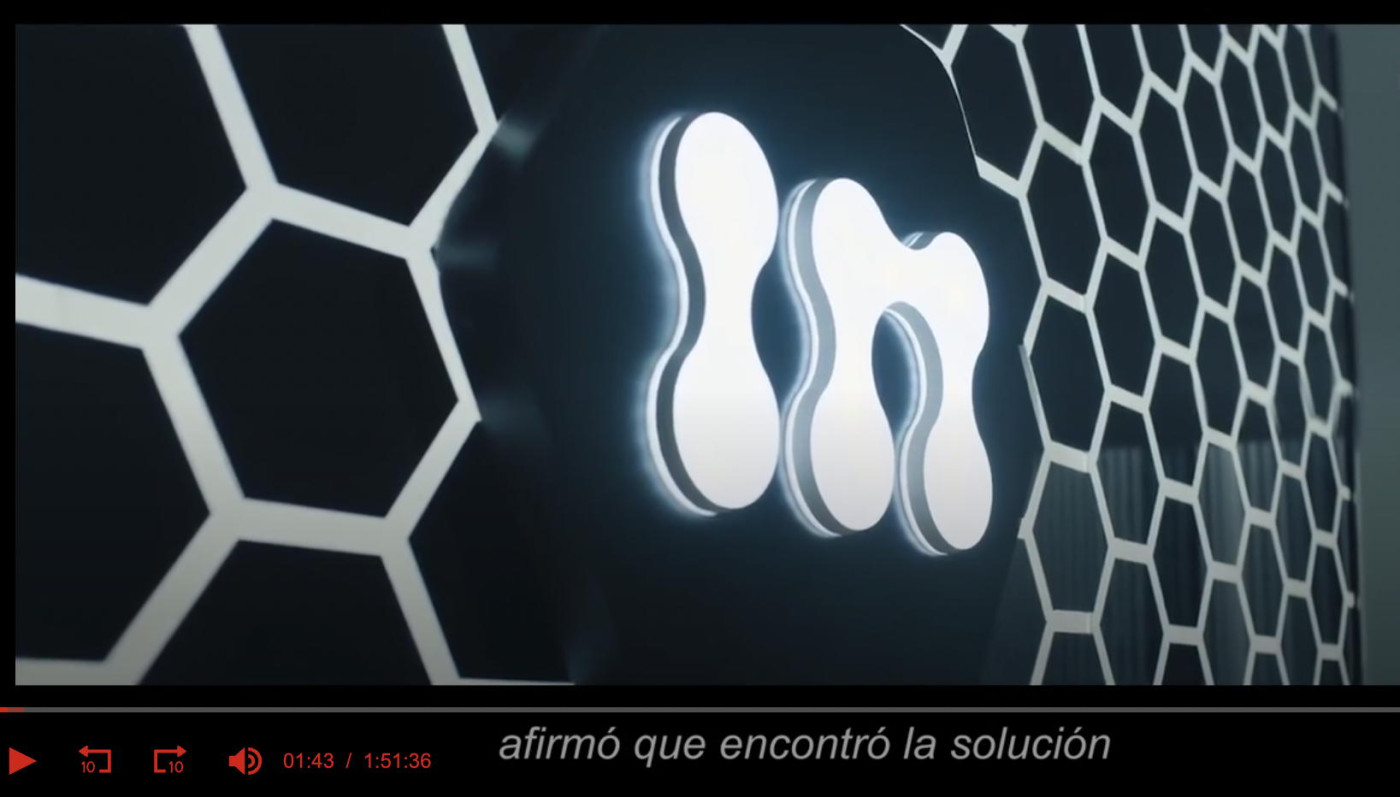
• Plastelina is a some kind of modelling clay. Kids love it (or love to smear it everywhere they can). Plastelina is the same thing as Plasticine, but we don't use it as a brand name in Poland. I hope I've counted the height properly... And I hope they didn't mean "height over the baseline" or "height of the whole fontstruction"... All characters are lowercase, except for "a" and "l" because it didn't look very well. My first entry out of 3. What a great combo - handmade looking face and handmade sample! Gallery: http://pokazywarka.pl/ks7qwt/
While early to say *ba baba baa* I believe we have a winner! In my book at least.
Beautiful Entry Neoqueto, don't know why but it also make me think to the words "Blob" and "Bioplasm", and some living cells from outerspace :0)
It's great! But the 4 doesn't quite look like a 4 though.
a great and evocative entry, and cool sample. you may want to double-check on the rules about the sample - you may need to use the actual font in the sample as well. i would hate for such a cool entry to be disqualified over a technicality.
Thank you FK, I knew I forgot about something. Font in action:
@Zefyrinus: I know that, but that was the only acceptable idea for "4".
Also I changed the height of a question mark and exclamation point which were 33 brick high.
And I made a clone of the original Plastelina: http://fontstruct.com/fontstructions/show/377375
You could use the h and rotate 180 to use as the 4.
also think the 1 is awkward and you could use I for 1. and the 7 is a little bizarre, you could use the current 1 for 7. not major issues. with a fun font like this, it all adds to the novelty. i would not delete anything, just add some alternates.
Very funny and very well resolved font! I really like this kind of experiments, especially when they are so well like this that you show here. Great work!
Great work!
Congratulations! FontStruct Staff have deemed your FontStruction worthy of special mention. “Plastelina” is now a Top Pick.
it looks nostalgic
Hi @neoqueto. I saw this logo in a movie and immediately thought of your Plastelina font. The movie is "Per Aspera ad Astra" ("Xing He Ru Meng", China, 2026). What do you think? Do they use Plastelina?